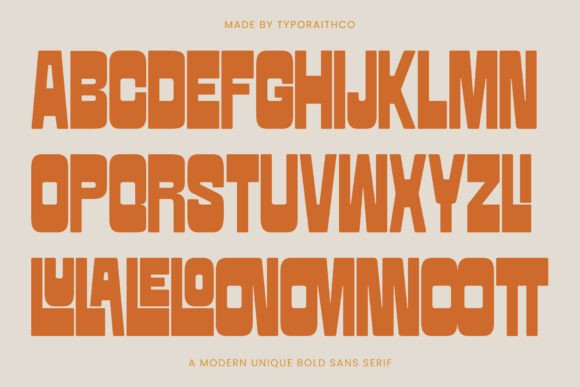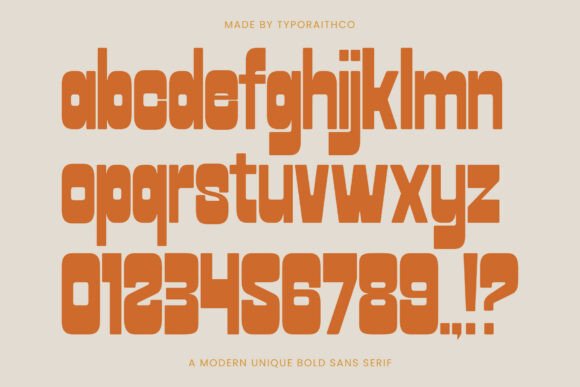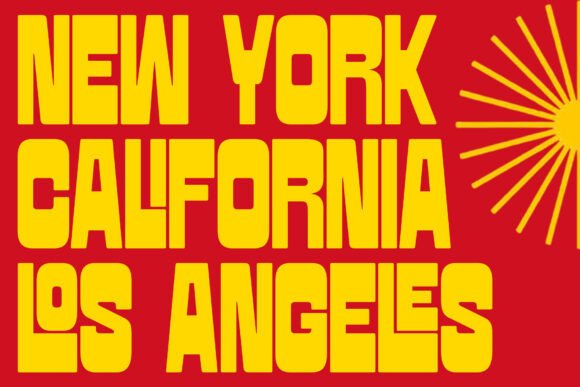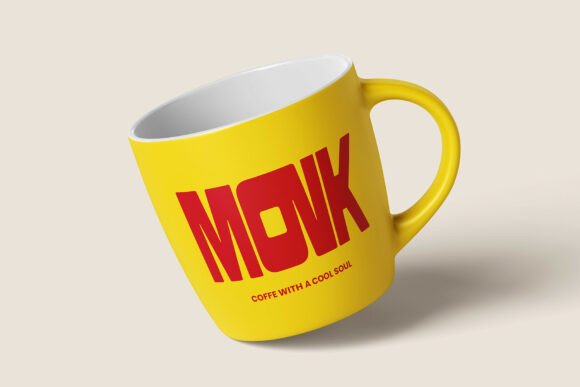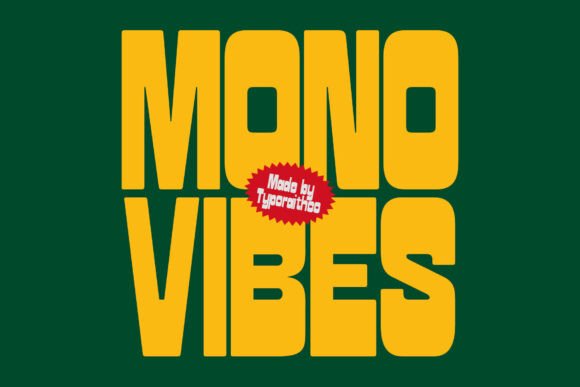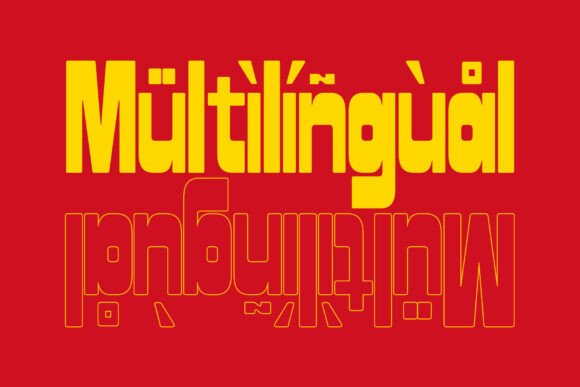
Introducing Glimer Font: The Modern Bold Sans Serif for Impactful Designs
In the world of typography, fonts play a crucial role in conveying messages, setting tones, and creating visual identities. For designers and crafters looking for a font that makes a statement, Glimer Font is an exceptional choice. This modern bold sans serif font is engineered to capture attention and leave a lasting impression. With its unique blend of sharp edges and soft curves, Glimer is perfect for headlines, branding, posters, and any design that demands to be noticed.
The Distinctive Character of Glimer
Glimer Font stands out with its distinctive and powerful character. Its design combines the starkness of sharp edges with the warmth of soft curves, creating a contemporary look that is both confident and engaging. This balance of modernity and approachability makes Glimer versatile for various design applications. Whether you’re crafting a bold logo, an editorial layout, or a typographic artwork, Glimer brings a level of sophistication and impact that elevates your design.
Design Features of Glimer
Glimer’s design is characterized by its wide stance and tall structure, which confer a strong presence to any text or logo it’s used in. This expansive footprint ensures that your message is not only seen but also felt, making it ideal for posters, billboards, and digital displays where visibility is key. Additionally, Glimer’s smooth rounded terminals add a touch of retro flair, giving the font a unique personality that is both modern and nostalgic.
Applications of Glimer Font
The versatility of Glimer Font makes it suitable for a wide range of design projects. Here are some of the areas where Glimer truly shines:
- Logo Designs: Glimer’s bold and modern aesthetic makes it an excellent choice for logos that need to stand out. Its distinctive character can help establish a strong brand identity.
- Editorial Layouts: For magazines, newspapers, and digital publications, Glimer can be used to create compelling headlines and typographic elements that draw readers in.
- Posters and Flyers: The font’s strong presence and attention-grabbing qualities make it perfect for posters and flyers that need to communicate a message quickly and effectively.
- Impactful Typographic Artwork: Designers can use Glimer to create stunning typographic artworks that are both visually striking and emotionally resonant.
Why Choose Glimer?
In a sea of fonts, Glimer offers several advantages that make it an attractive choice for designers:
- Uniqueness: Glimer’s blend of sharp and soft elements sets it apart from more traditional sans serif fonts, offering a fresh alternative for designers.
- Versatility: Its wide range of applications makes Glimer a valuable addition to any designer’s toolkit.
- Legibility: Despite its boldness, Glimer maintains high legibility, ensuring that messages are conveyed clearly and effectively.
- Modern Appeal: For brands and designers looking to convey a modern and forward-thinking image, Glimer is an excellent choice.
Glimer Font is more than just a typeface; it’s a design statement. Its modern bold sans serif style, combined with its distinctive character and versatile applications, make it an invaluable resource for designers and crafters. Whether you’re aiming to create attention-grabbing headlines, establish a strong brand identity, or simply make your design bold and unforgettable, Glimer is the perfect tool for the job. Embrace the power of Glimer and elevate your designs to new heights of impact and sophistication.